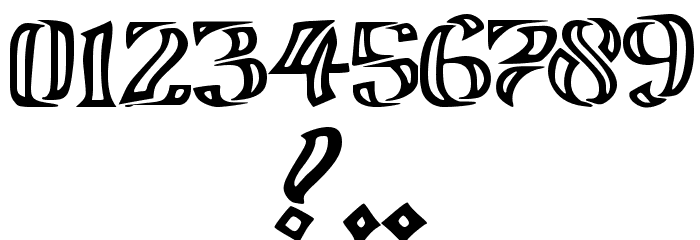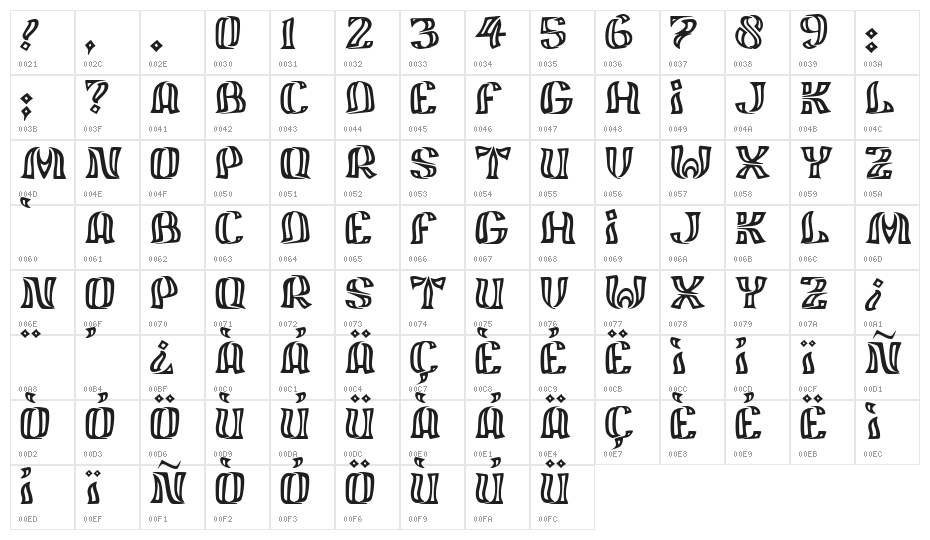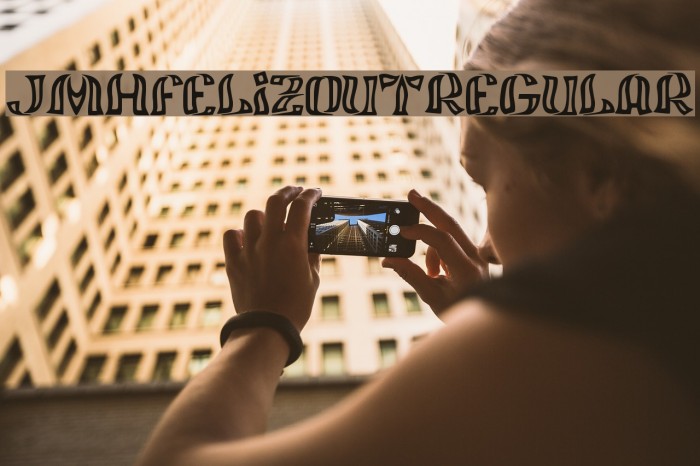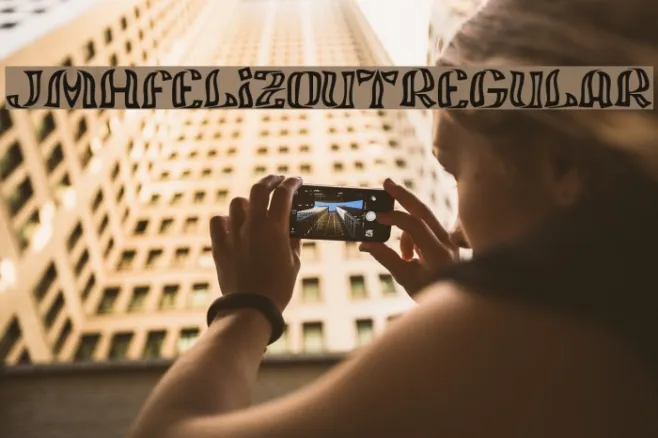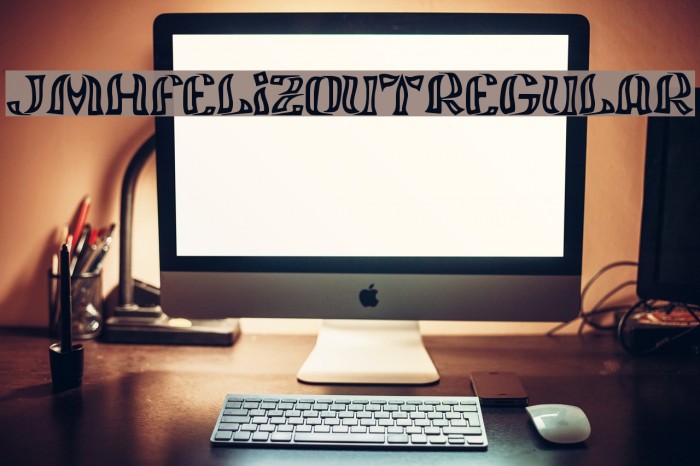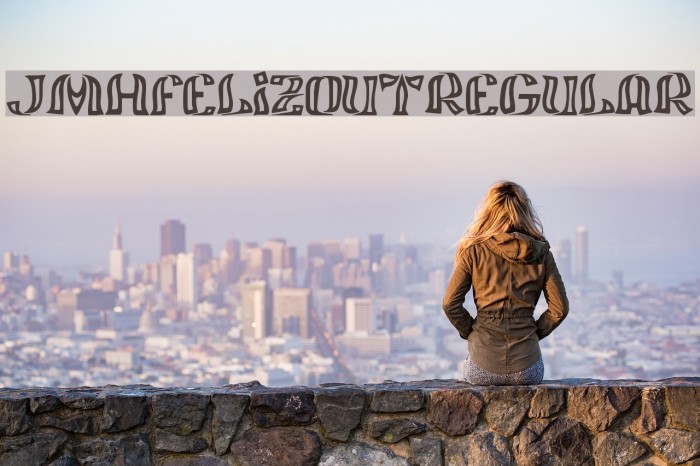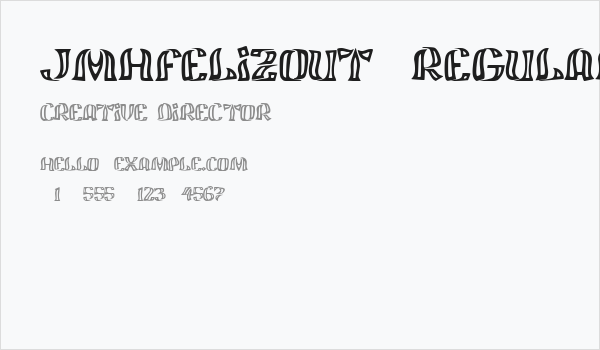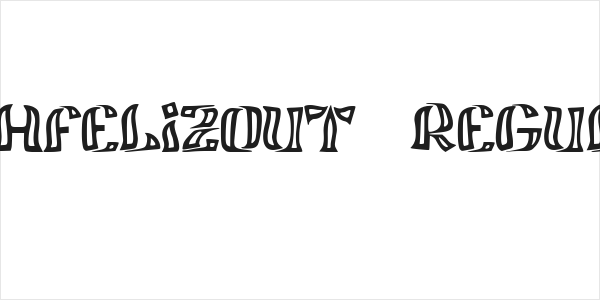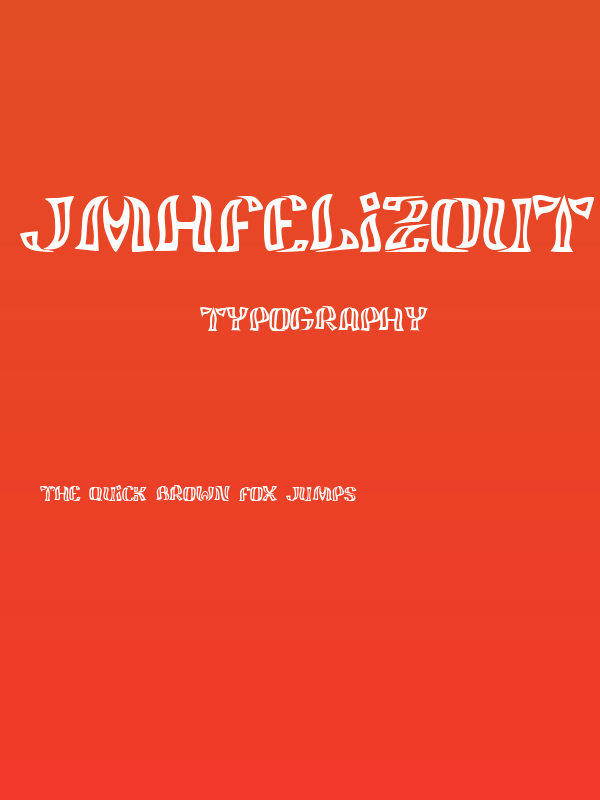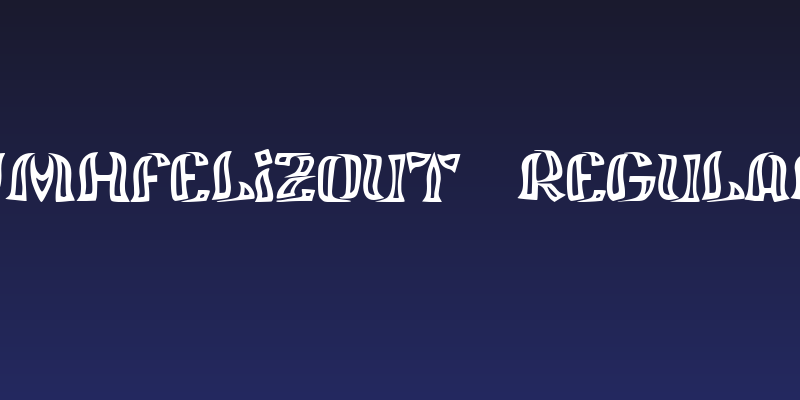
JMHFelizOut-Regular Font
JMHFelizOut-Regular Description
This font features a bold and decorative style with a unique, artistic flair. Each character is designed with intricate cut-out patterns, creating a sense of depth and movement. The uppercase and lowercase letters maintain a consistent style, with sharp angles and curves that give the font a dynamic and eye-catching appearance. The numbers and special characters follow the same design principles, ensuring a cohesive look across all elements. This font is perfect for projects that require a standout, artistic touch.
| Proposed Projects | Ideal for posters, album covers, branding materials, and any project needing a bold, artistic statement. |